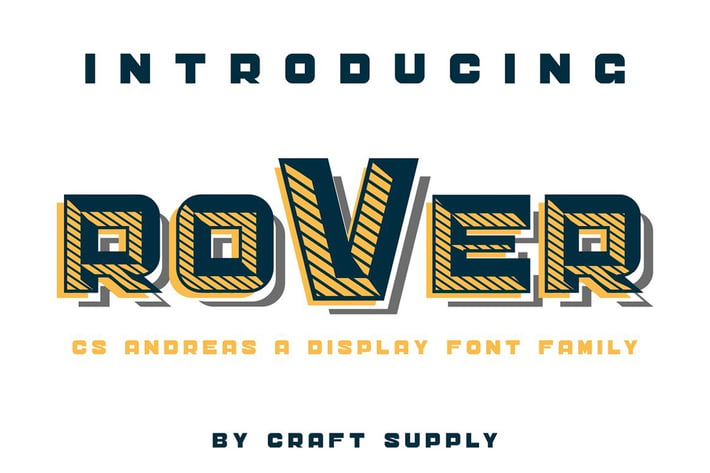
CS Sandreas Font Family
Introducing CS Sandreas Font Family includes 6 Style Fonts. It can be used to create almost all types of design projects like print materials. Just use your imagination and your project will become more alive and vivid than ever with one of the CS Sandreas Font Family.
You want to make a greeting card or a package design, or even a brand identity, craft design, any DIY project, book title, wedding font, pop vintage design, retro design or any purpose to make your art / design project look pretty and trendy? Feel free to play with all the patterns and shape!
- CS Sandreas Regular
- CS Sandreas Bevel
- CS Sandreas Line
- CS Sandreas Bold Line
- CS Sandreas Double
- CS Sandreas Outline